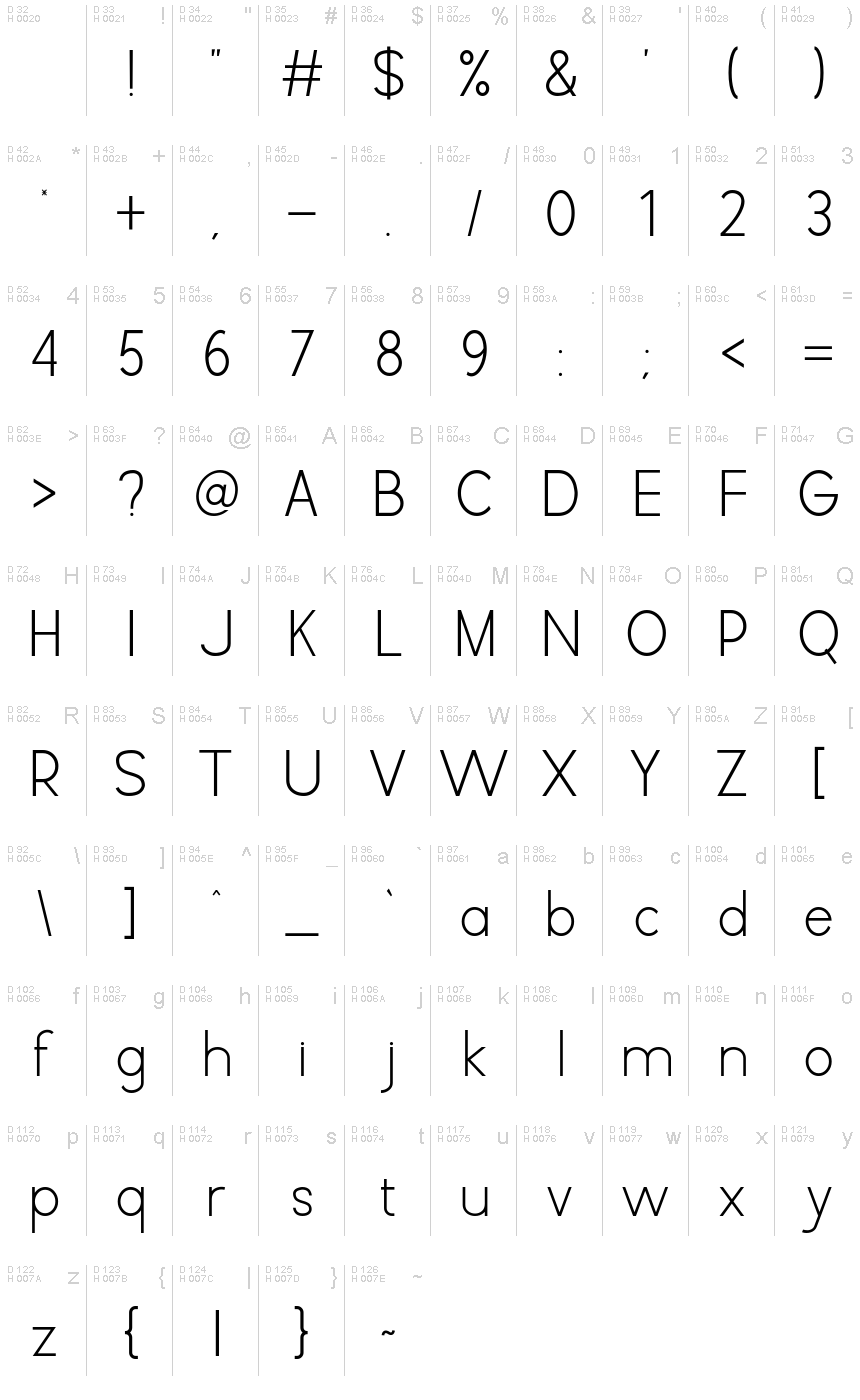
Sweet Bread
Sweet Bread, designed by Rvandtype, is a captivating sans-serif font that exudes a delicate and refined aesthetic. Its light weight and clean lines create a harmonious balance, conveying a sense of elegance and sophistication. The streamlined letterforms offer a modern and approachable charm, making it a versatile choice for a wide range of design applications.
This font's versatility shines through its ability to effortlessly complement both contemporary and traditional design styles. Its versatile nature makes it an excellent selection for branding and identity projects, where its refined character can lend a touch of sophistication to logos, headlines, and editorial layouts. Additionally, Sweet Bread's legibility and visual appeal make it a compelling option for digital interfaces, print collateral, and even packaging design, where its distinctive style can help captivate audiences.